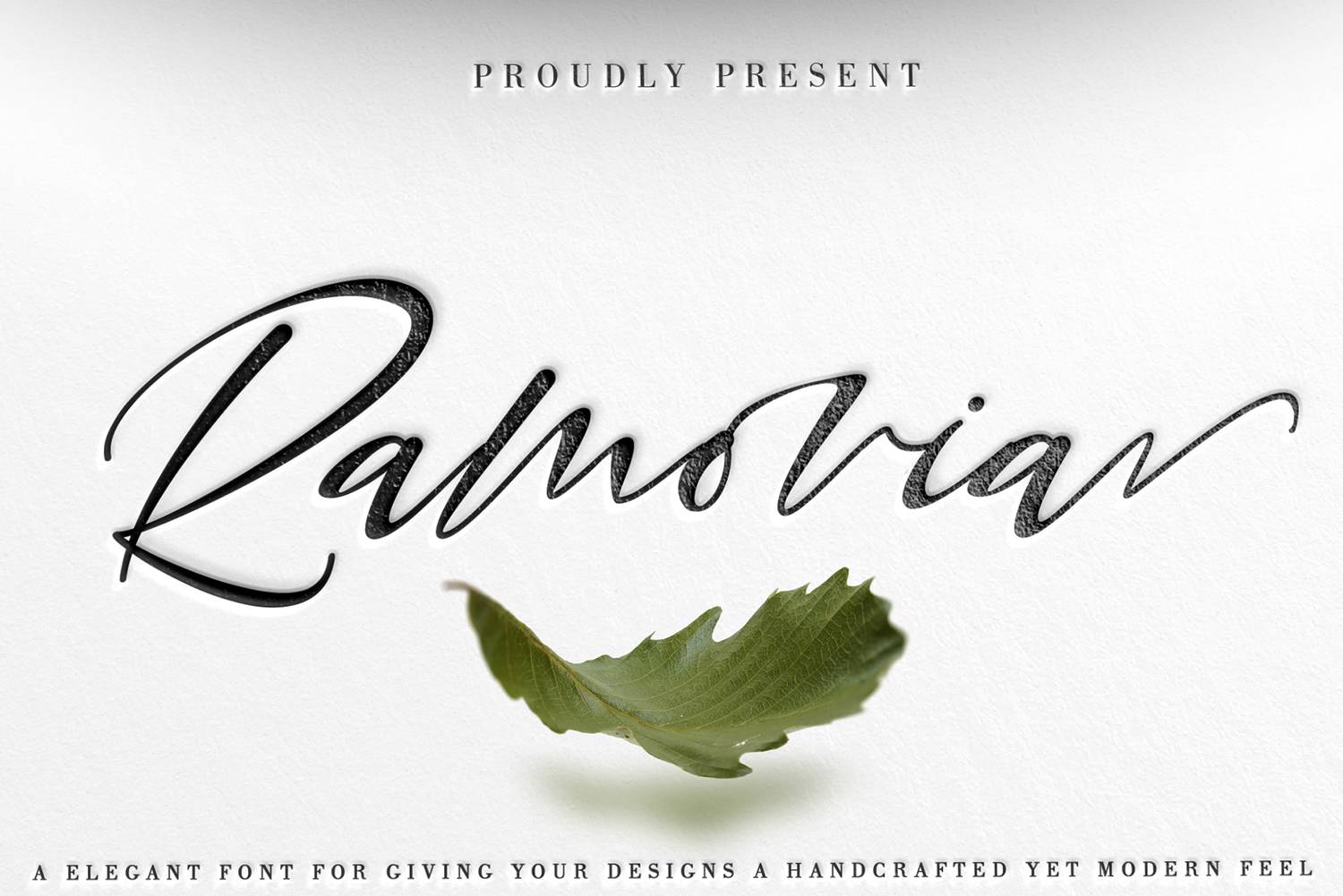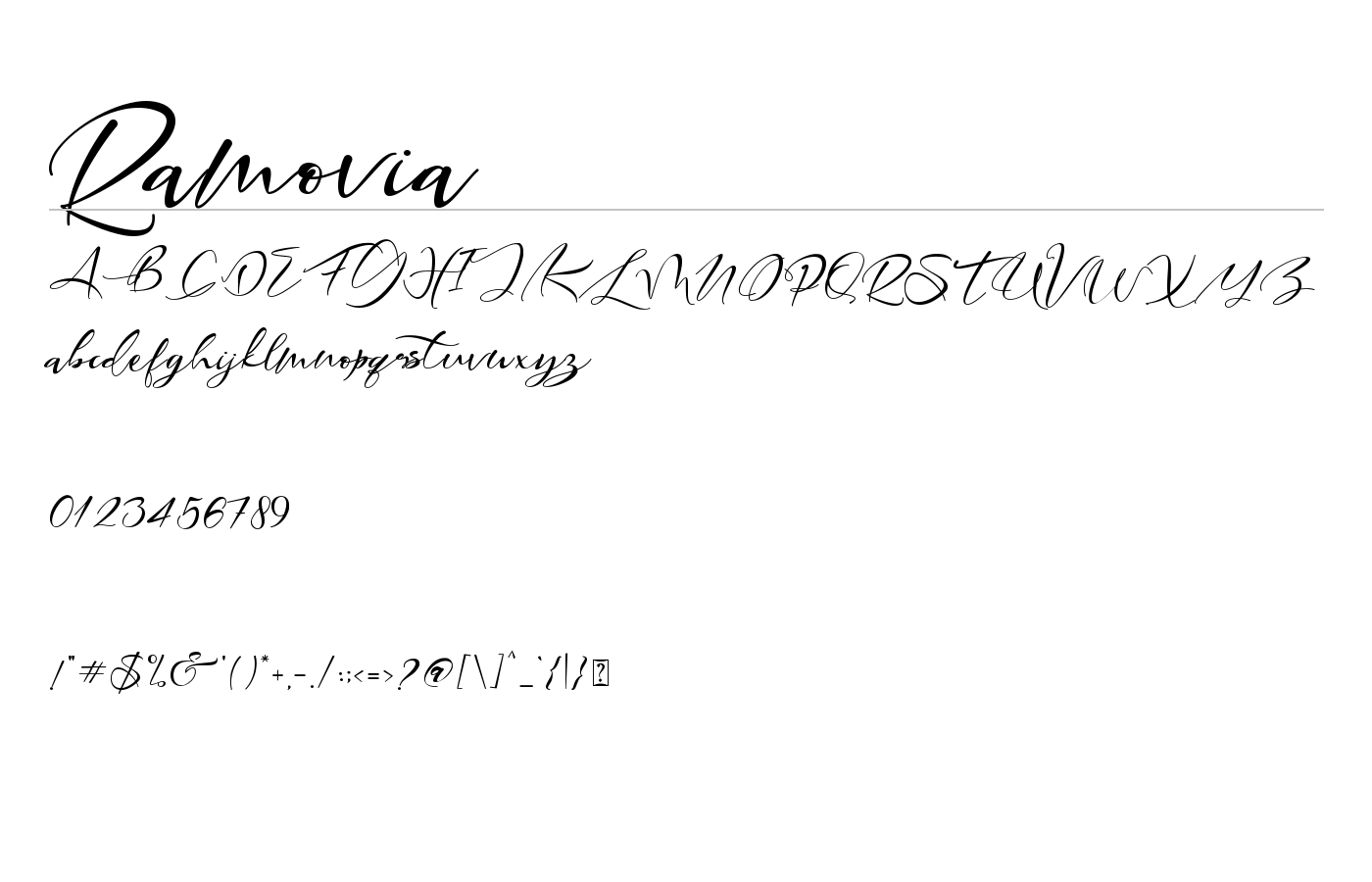
Ramovia is an elegant, flowing script font characterized by its delicate, handwritten style with varying stroke thickness and graceful, connected letterforms. Its slender, slightly tall letters with smooth curves and refined swashes create a sophisticated and romantic feel, making it ideal for invitations, branding, and any design seeking a touch of luxury and personality. This font works beautifully for elegant logos, wedding stationery, and stylish editorial projects where a refined, artistic expression is desired.
Ramovia Font
About Ramovia Font